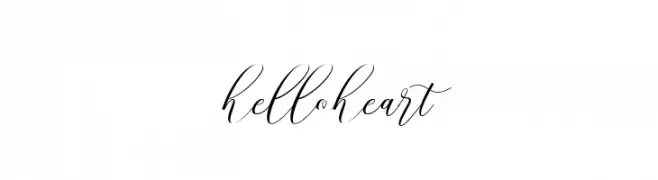
A playful, handwritten font with smooth, flowing lines and rounded edges.
A sophisticated script font with flowing, interconnected letters and elegant flourishes.
A flowing, elegant script font with a playful yet sophisticated handwritten style.
A decorative cursive font with elegant loops and swirls.
A playful and elegant script font with fluid, connected strokes.
A delicate, flowing script font with elegant, cursive characteristics.
A refined and elegant script font with flowing, cursive characters.